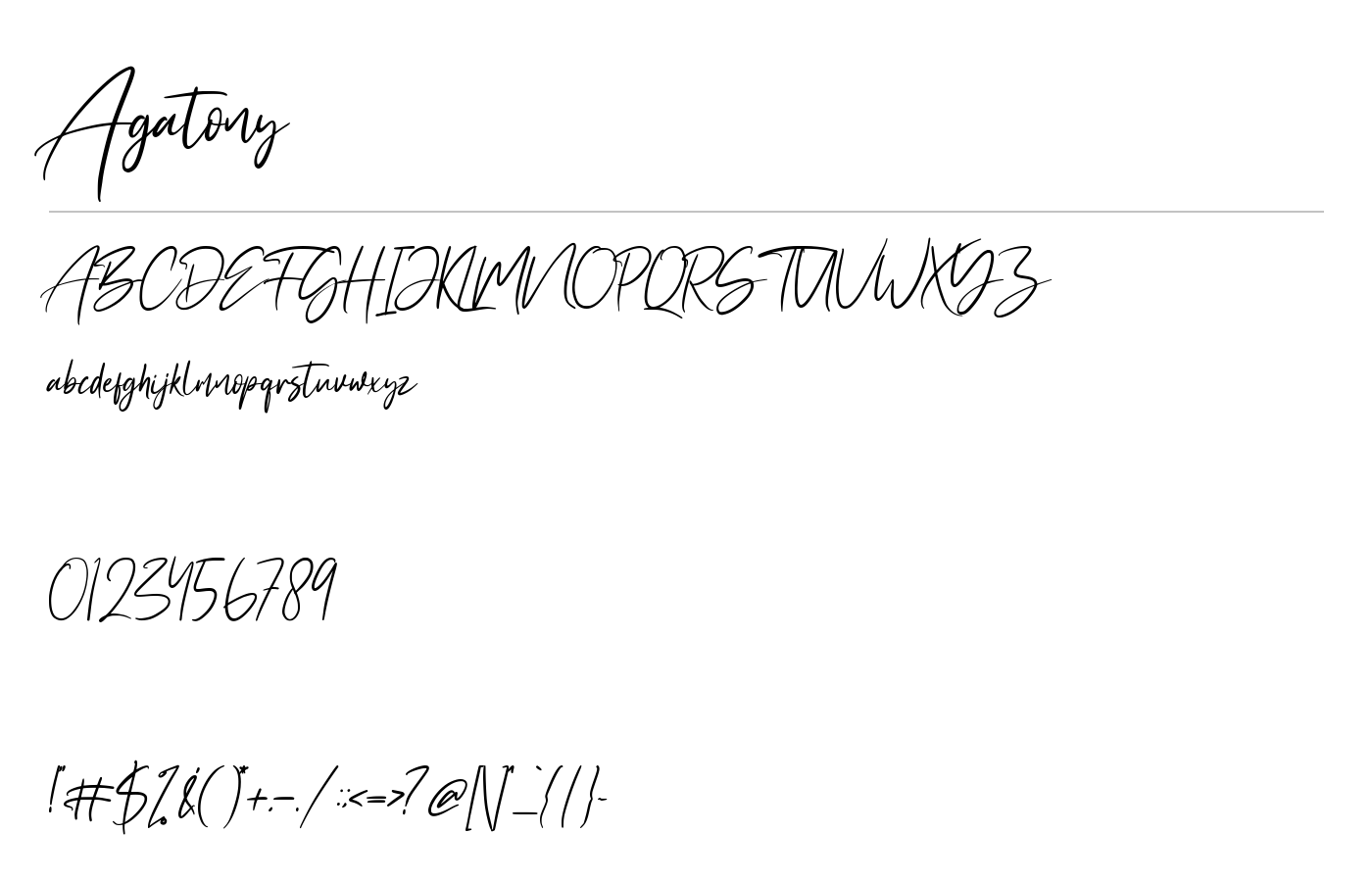
Agatony is a graceful script font characterized by its delicate, flowing strokes and elegant handwritten style. Its light weight and fine lines create a sophisticated yet approachable feel, ideal for adding a personal and stylish touch to branding, invitations, and fashion-related designs. This font excels in headlines and logos where a modern, chic, and artistic impression is desired.
Agatony Font
About Agatony Font